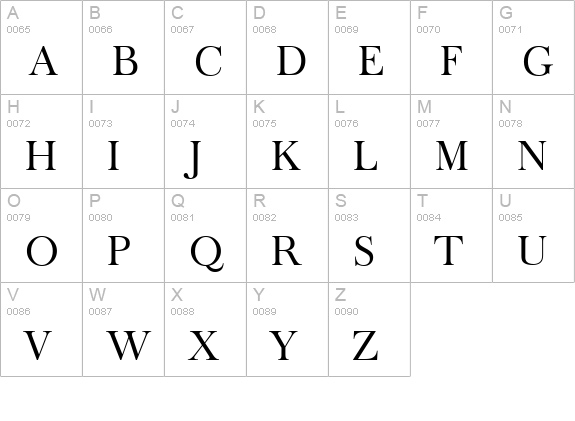
BaskerOldSerial-Regular is the standard, neutral variant in the BaskerOldSerial typeface family \xE2\x80\x94 well suited to general body text, paragraphs, and standard typographic work.
BaskerOldSerial-Regular font is a classic serif typeface that exudes elegance and sophistication. Its timeless design makes it perfect for a wide range of projects, from editorial layouts to branding and packaging. The clean lines and balanced proportions of BaskerOldSerial-Regular give it a sense of tradition and authority, making it an excellent choice for conveying professionalism and sophistication. What's even better is that BaskerOldSerial-Regular is available for free download at FontsMarket.com. This means you can add this versatile font to your collection without any cost, making it a valuable asset for any designer or typographer. Don't miss out on the opportunity to enhance your projects with the timeless beauty of BaskerOldSerial-Regular font, now freely available for download at FontsMarket.com.